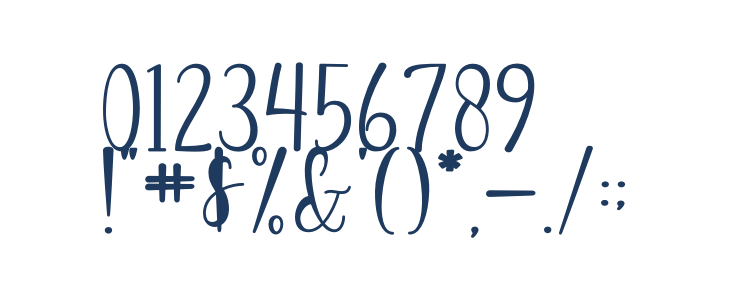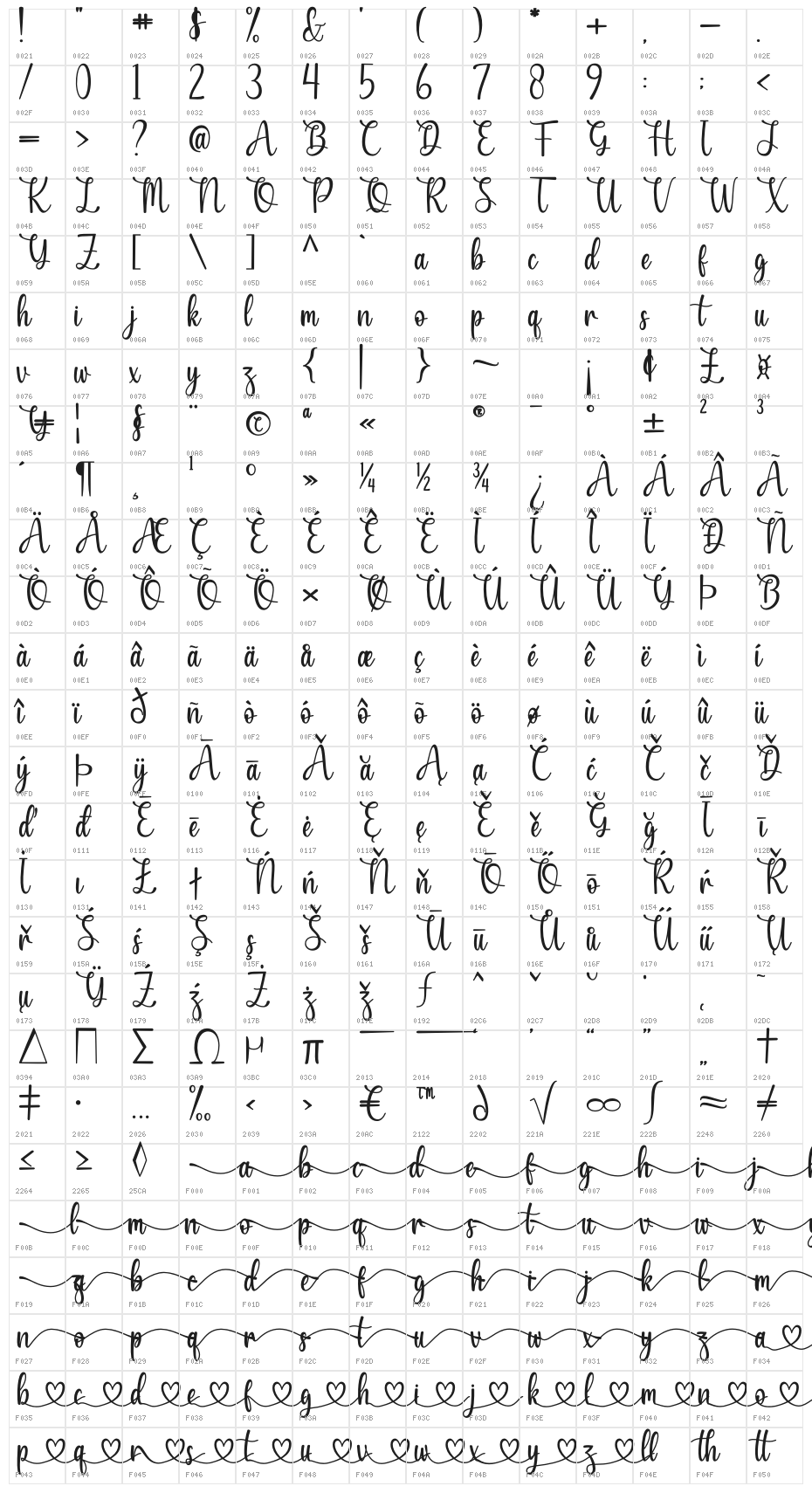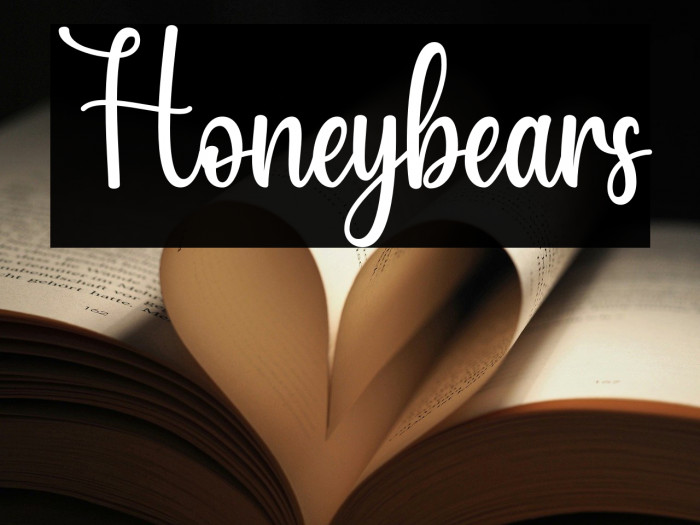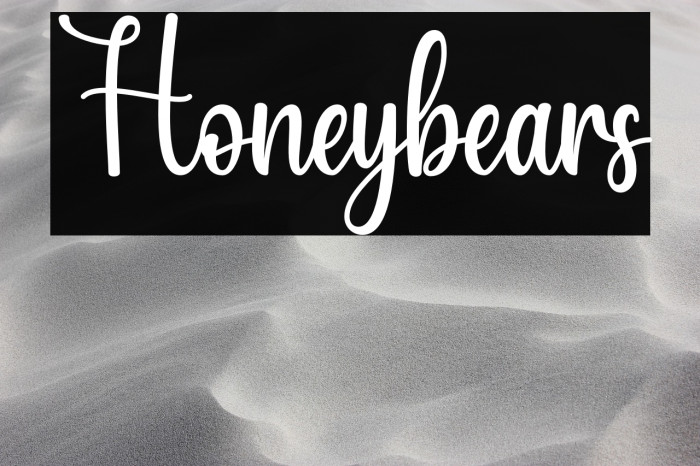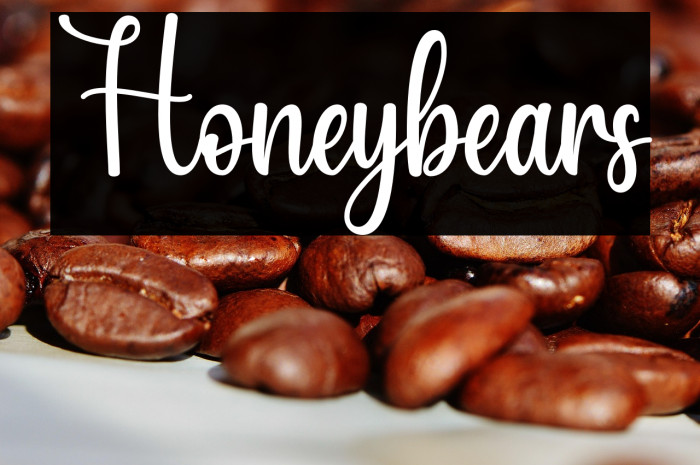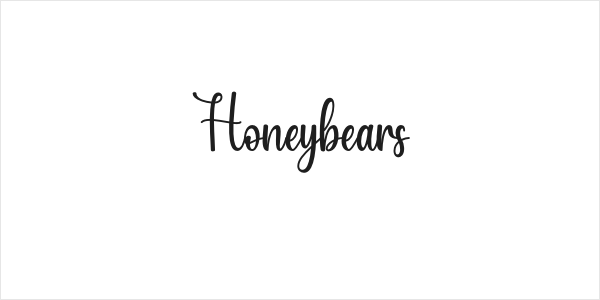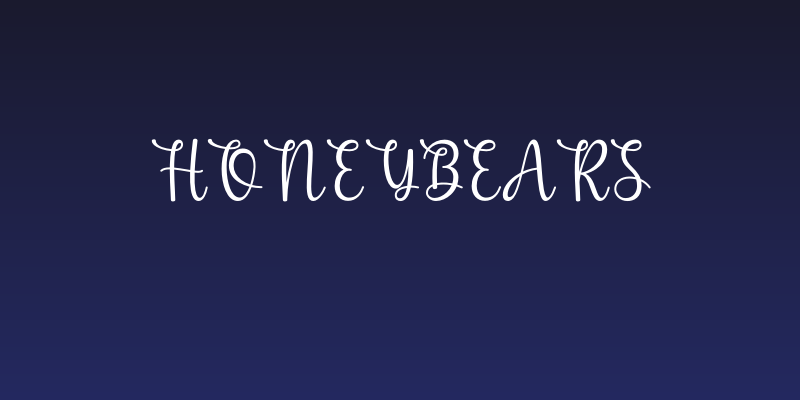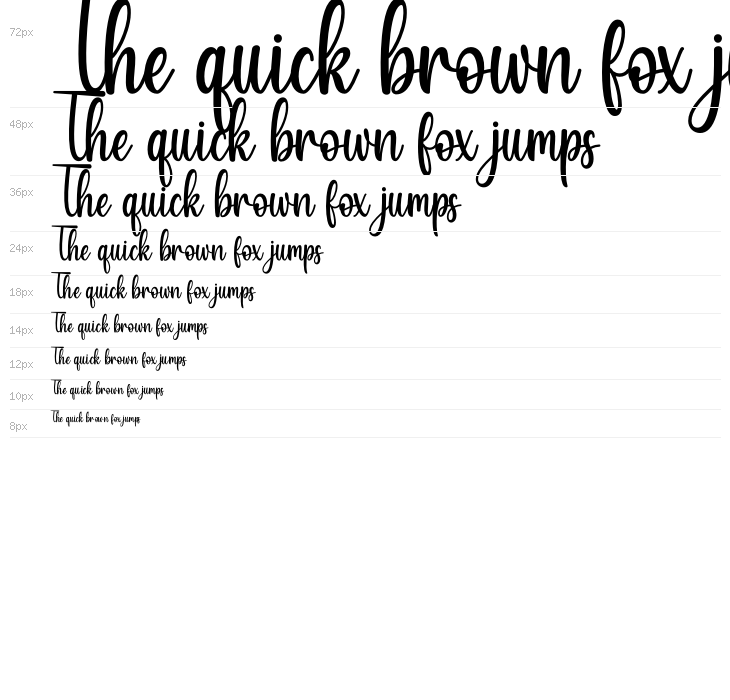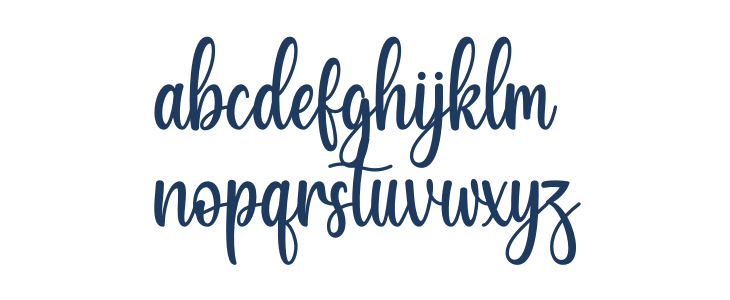
Honeybears Font
Honeybears Description
This font features a playful and whimsical script style, characterized by its flowing, interconnected letters. The uppercase letters are slightly more structured, while the lowercase letters exhibit a more casual, handwritten feel. The numbers and special characters maintain the same playful aesthetic, with exaggerated curves and loops. The overall design is both elegant and approachable, making it suitable for a variety of creative projects. The strokes are consistent in weight, providing a balanced appearance across all characters.